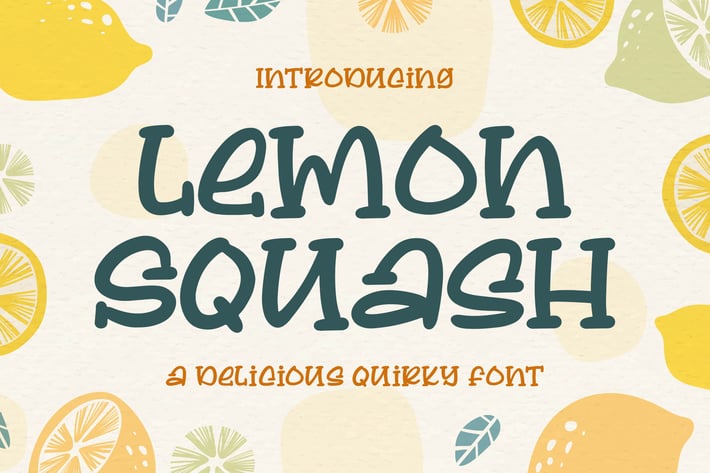
Lemon Squash - a Delicious Qirky Font
Introducing of our new product the name is Lemon Squash a Delicious Qirky Font. Lemon Squash inspired by quirky handwritten this font is a fun theme very good for, book cover, poster, t-shirt, quote, logotype, craft and etc